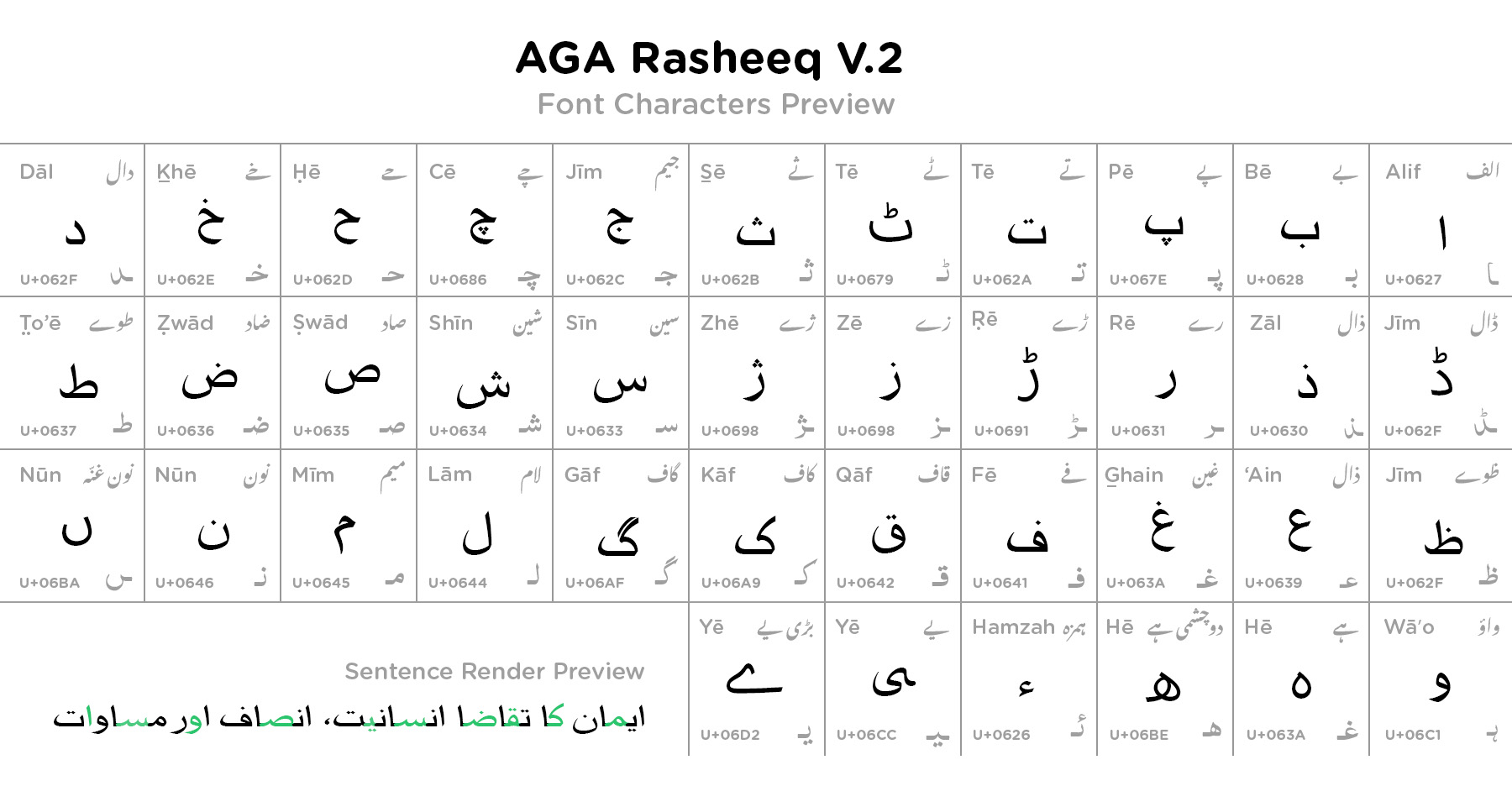
AGA Rasheeq V.2
AGA Rasheed V2 is a regular Qalam writing Arabic font with a calligraphic influence. It was designed by font designer Mohammad Alagha and released under the trademark of Applied Graphic Arts in October 2016. With 482 characters and 259 glyphs, it offers versatility for various design projects. Its semi-light weight and medium width strike a balance between readability and style. The font’s uniqueness lies in its dynamic strokes and varying thickness, representing the flow of a calligraphy pen. It is inspired by the traditional Naskh calligraphy, evident in its solid baseline and horizontal emphasis. This feature adds a sense of artistry to your text. AGA Rasheeq V2 supports Latin, Arabic, Urdu, and Persian languages, making it suitable for a diverse range of typographic applications. Its Unicode blocks cover Basic Latin, Latin-1 Supplement, and the Private Use Area, ensuring compatibility with different text encoding standards. Whether used for headings, logos, branding, or editorial design, AGA Rasheeq V2 adds a touch of sophistication and flair to your projects, making it a versatile choice for designers seeking elegance and creativity in their typography. Moreover, the font comes in 2 different variants or weights, which are:
1. AGA Rasheed V2 Regular
2. AGA Rasheed V2 Bold
Font Family AGA Rasheeq V.2
Font Developer Mohammad Alagha